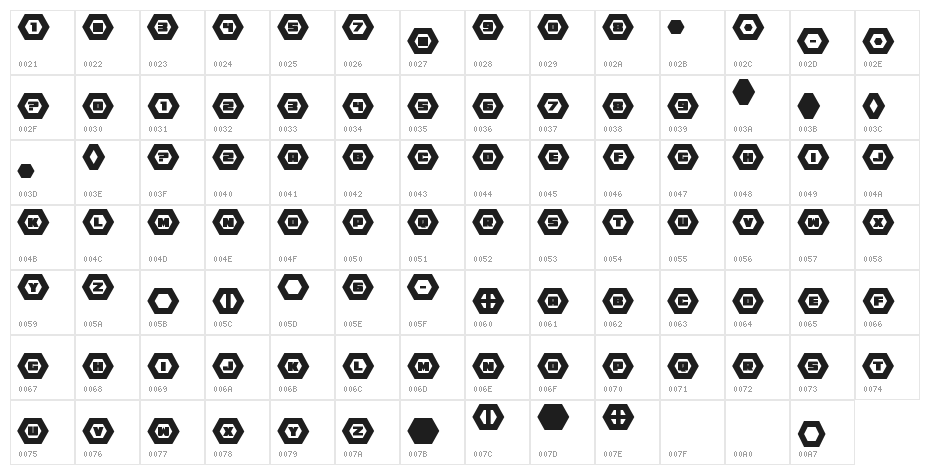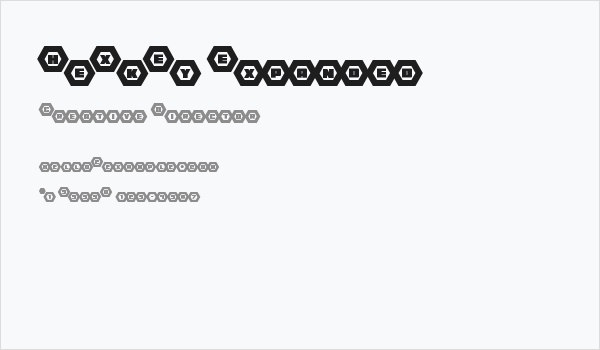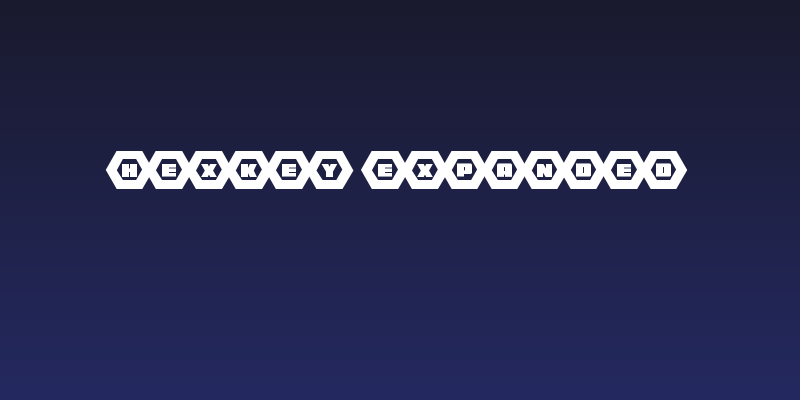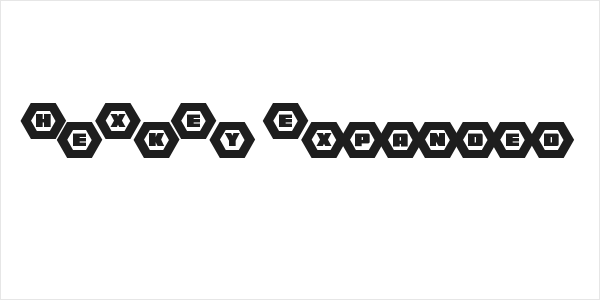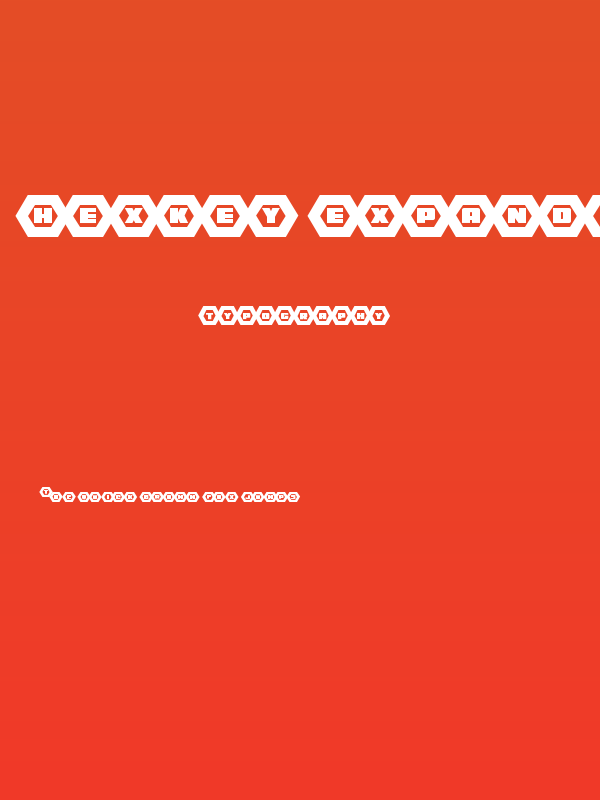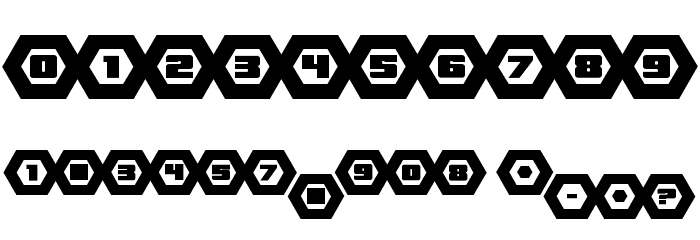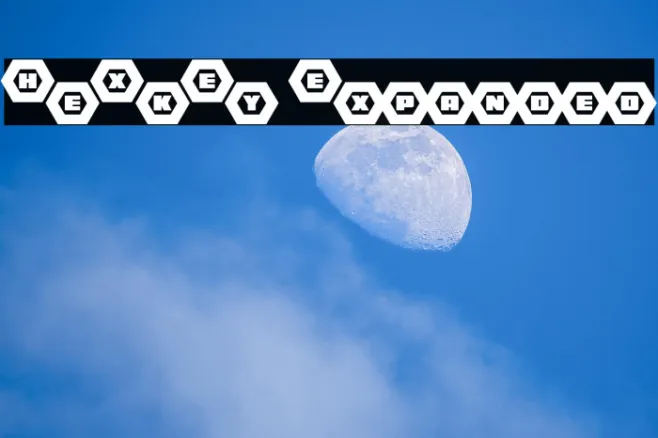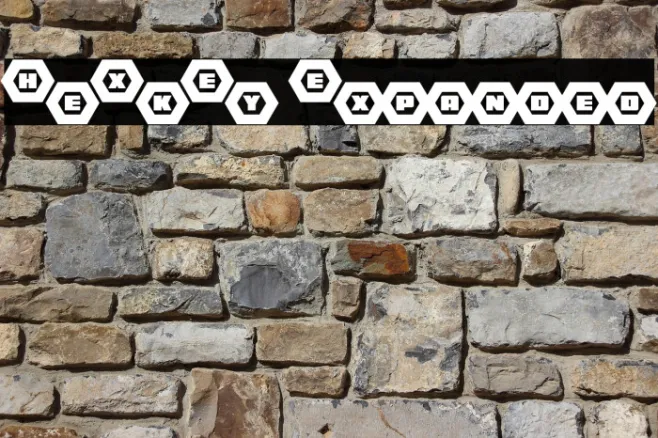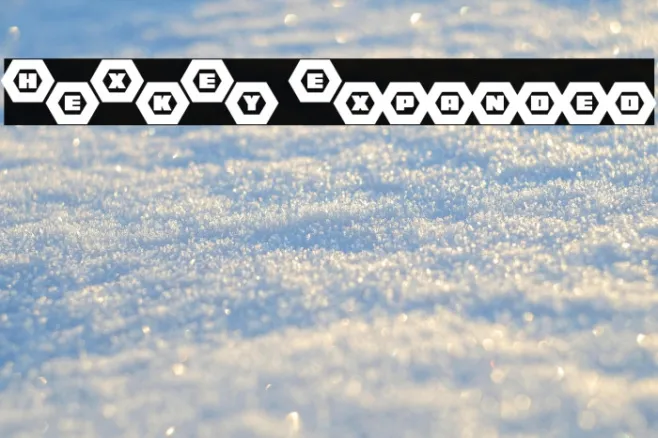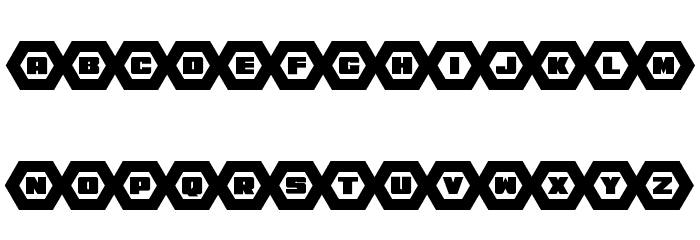
HeXkEy Expanded Font
HeXkEy Expanded Description
This font features a bold and geometric design, with each character enclosed within a hexagonal shape. The letters and numbers are crafted with a strong, uniform thickness, creating a striking visual impact. The hexagonal borders add a unique and modern touch, making the font stand out. The characters are evenly spaced within their hexagons, ensuring clarity and readability. This font is ideal for projects that require a futuristic or tech-inspired aesthetic, providing a distinctive and memorable appearance.
| Proposed Projects | Ideal for tech-themed designs, video game graphics, futuristic posters, and branding that requires a modern edge. |